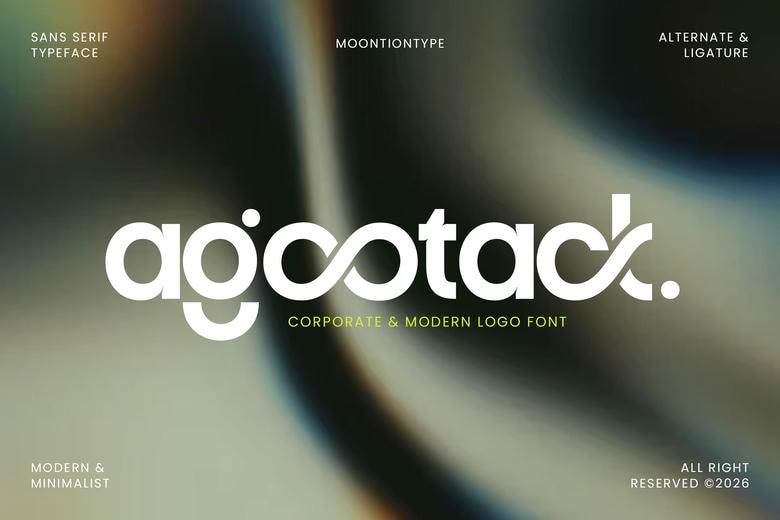
Agootack Font
Agootack is a clean and minimalist sans serif typeface designed to be used in clean, professional and futuristic designs. With clean lines, original letterforms, and sleek ligatures, Agootack provides a new and unique appearance that will be in any work.
This font is crafted in the mind of a corporate and modern aesthetic that is ideal in branding, logo design, and modern visual identities. It is very versatile in digital and print applications because of its simplicity and the richness it has in character.
Agootack has beautiful alternatives and ligatures, which you can make to produce custom and special typography with little effort. This font allows a sophisticated and up-to-date look regardless of whether you are creating a smooth logo, a tech startup brand, or an up-to-date editorial layout.
Agootack Sans Serif Font